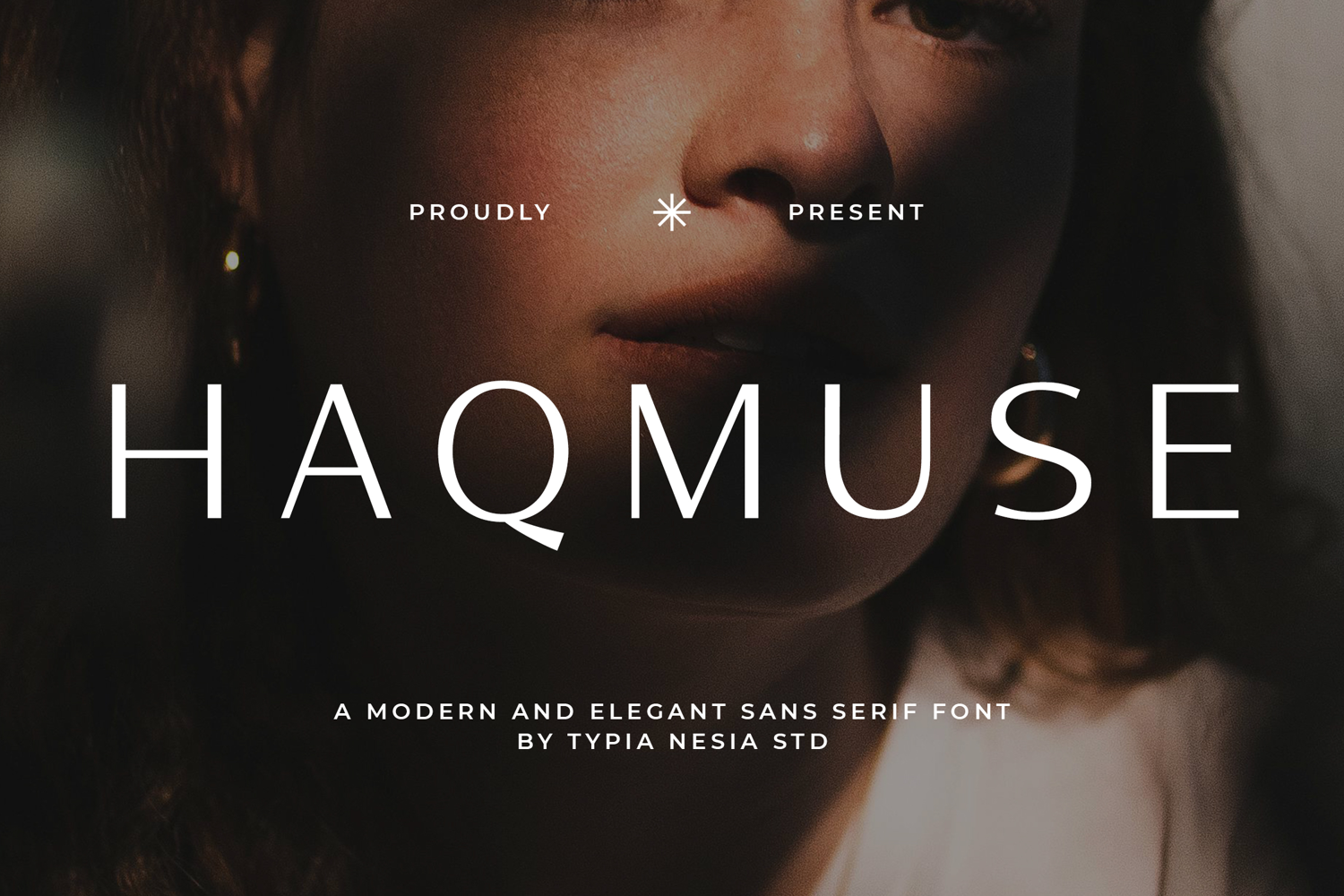
Haqmuse - Beauty Elegant Minimalist Sans Font
Haqmuse - Beauty Elegant Minimalist Sans Font - Modern Luxury Clean Logo Font
Haqmuse is a refined modern typeface crafted for high-end visual design. Featuring a modern, minimalist, and elegant sans structure, Haqmuse delivers a clean, stylish, and graceful appearance that perfectly reflects beauty, chic, and luxury aesthetics, making this font ideal for fashion branding, magazines, cosmetic and skincare packaging, logos, posters, and upscale branding projects. With its clear readability and timeless elegance, Haqmuse enhances visual identity with a polished and professional look that stands out across both print and digital media.